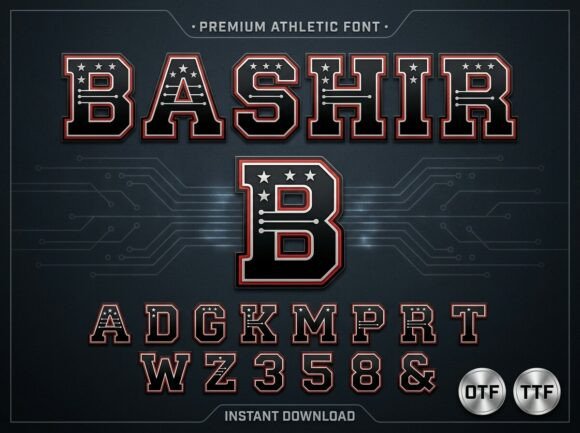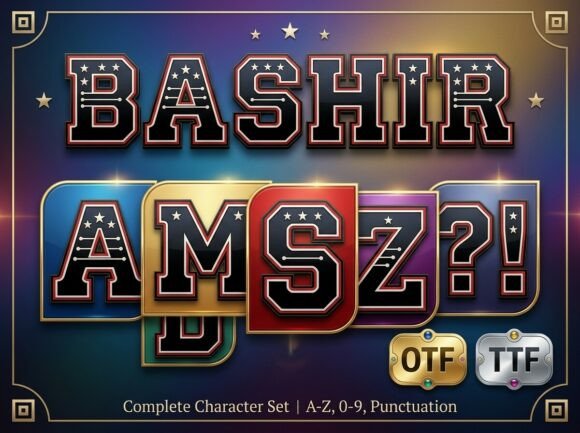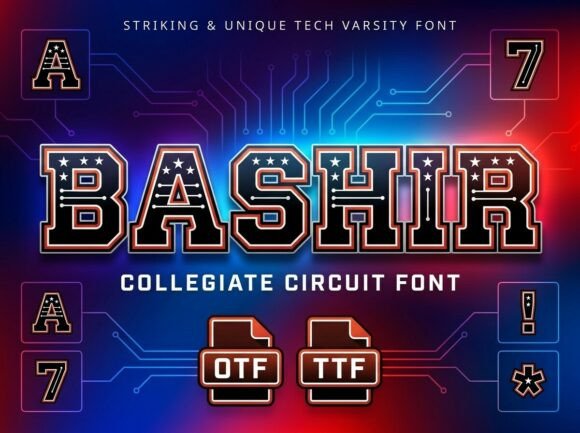
Power Up Your Team’s Identity with Bashir: The Ultimate Collegiate Circuit Font
In the world of design, a font can make all the difference in creating a strong brand identity. For teams and organizations looking to make a bold statement, Bashir is the perfect choice. This striking “Collegiate Circuit” font seamlessly blends varsity tradition with high-tech energy, making it the ultimate choice for esports branding, tech-focused athletic wear, and robotic competition logos.
The Unique Features of Bashir Font
Bashir is not just another font – it’s a game-changer. This heavy-duty block font features integrated motherboard circuit patterns and patriotic star accents, giving it a unique and futuristic look. The font’s design is inspired by the intersection of technology and sports, making it perfect for teams and organizations that want to convey a sense of innovation and competition.
Design Elements of Bashir Font
The design elements of Bashir font are what set it apart from other fonts. The integrated motherboard circuit patterns give the font a high-tech look, while the patriotic star accents add a touch of tradition and patriotism. The font’s block design makes it bold and eye-catching, perfect for making a statement.
Perfect for Esports Branding
Esports teams and organizations need a font that can keep up with their fast-paced and competitive nature. Bashir font is perfect for esports branding, with its bold and futuristic design. The font’s high-tech look and feel make it perfect for teams that want to convey a sense of innovation and cutting-edge technology.
Ideal for Tech-Focused Athletic Wear
For athletic wear brands that focus on technology and innovation, Bashir font is the perfect choice. The font’s design elements, such as the motherboard circuit patterns and patriotic star accents, make it perfect for brands that want to convey a sense of high-tech style and performance.
Great for Robotic Competition Logos
Robotic competition logos require a font that can convey a sense of innovation and technology. Bashir font is perfect for robotic competition logos, with its bold and futuristic design. The font’s integrated motherboard circuit patterns and patriotic star accents make it perfect for logos that require a sense of high-tech style and competition.
Where the Stadium Meets the Laboratory
Bashir font is where the stadium meets the laboratory – it’s a perfect blend of traditional varsity style and high-tech innovation. The font’s design elements make it perfect for teams and organizations that want to convey a sense of competition and innovation.
Key Benefits of Using Bashir Font
- Unique Design: Bashir font has a unique design that sets it apart from other fonts.
- Bold and Eye-Catching: The font’s block design makes it bold and eye-catching, perfect for making a statement.
- High-Tech Look and Feel: The font’s integrated motherboard circuit patterns give it a high-tech look and feel.
- Perfect for Esports Branding: Bashir font is perfect for esports branding, with its bold and futuristic design.
- Ideal for Tech-Focused Athletic Wear: The font’s design elements make it perfect for tech-focused athletic wear brands.
In conclusion, Bashir font is the ultimate choice for teams and organizations looking to make a bold statement. Its unique design elements, bold and eye-catching style, and high-tech look and feel make it perfect for esports branding, tech-focused athletic wear, and robotic competition logos. Whether you’re looking to convey a sense of innovation, competition, or tradition, Bashir font is the perfect choice.